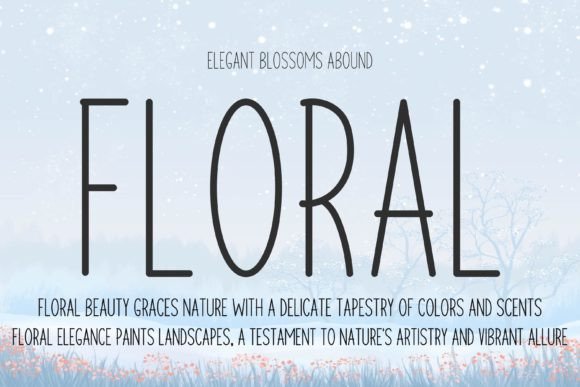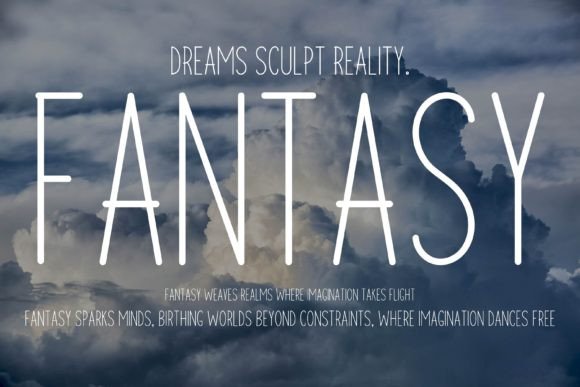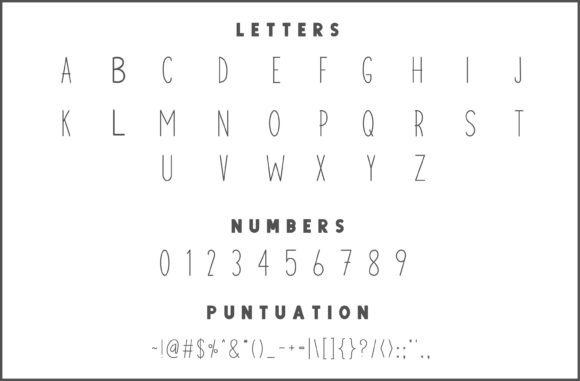
Fantastic Font: Elevate Your Design with Timeless Elegance
In the world of typography, a great font can make all the difference in elevating your design from ordinary to extraordinary. Introducing Fantastic Font, a versatile and balanced typeface that lives up to its name. With its clean lines and impeccable proportions, this font brings a sense of harmony and aesthetic appeal to any design. Perfect for a wide range of projects, including branding, editorial layouts, and digital interfaces, Fantastic Font exudes a timeless elegance and ensures your text looks flawlessly polished.
The Art of Typography: Why Fantastic Font Stands Out
Typography is an essential element in design, conveying emotions, and setting the tone for your message. A well-crafted font can instantly capture the attention of your audience, while a poorly chosen one can detract from your content. Fantastic Font is designed to impress, with a unique blend of sophistication and approachability. Its clean lines, precise curves, and balanced proportions create a harmonious visual experience that engages and retains your audience.
Key Features of Fantastic Font
- Clean Lines and Minimalist Aesthetic: Fantastic Font boasts a sleek and modern design, perfect for projects that require a touch of sophistication.
- Balanced Proportions: The font’s carefully crafted proportions ensure that your text is easy to read, even at smaller sizes.
- Versatile and Adaptable: Whether you’re designing a logo, brochure, or website, Fantastic Font adapts seamlessly to various mediums and applications.
- Timeless Elegance: This font’s classic design ensures that your work will remain stylish and relevant for years to come.
Applications of Fantastic Font
Fantastic Font is an incredibly versatile typeface, suitable for a wide range of design projects. Here are some examples of how you can use this exceptional font:
- Branding and Logos: Create a lasting impression with a custom logo that incorporates Fantastic Font, perfect for businesses, startups, and entrepreneurs.
- Editorial Layouts: Elevate your publications, such as magazines, newspapers, and books, with a sophisticated and readable font.
- Digital Interfaces: Enhance the user experience of your website, mobile app, or software with a clean and intuitive font.
- Marketing Materials: Make your brochures, flyers, and posters stand out with a bold and eye-catching font.
Tips for Pairing Fantastic Font with Other Design Elements
To get the most out of Fantastic Font, consider the following pairing suggestions:
- Neutral Backgrounds: Allow Fantastic Font to shine by pairing it with a simple, neutral background that won’t compete for attention.
- Bold Colors: Add a pop of color to your design with bold, contrasting hues that complement the font’s elegant aesthetic.
- Imagery and Graphics: Combine Fantastic Font with high-quality images or custom graphics to create a visually appealing and engaging design.
In conclusion, Fantastic Font is an exceptional typeface that brings a sense of harmony and aesthetic appeal to any design. Its versatility, balanced proportions, and timeless elegance make it perfect for a wide range of projects. Whether you’re a designer, crafter, or entrepreneur, Fantastic Font is an excellent choice for elevating your work and making a lasting impression.